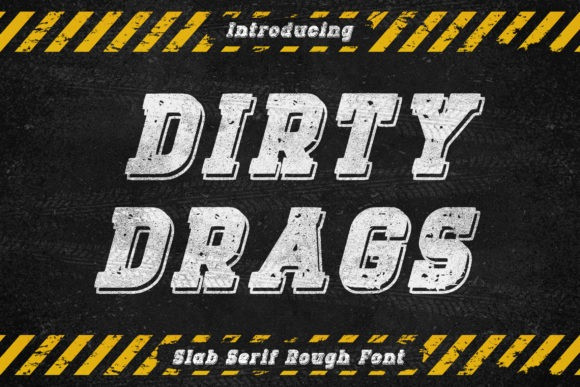
Dirty Drags Font
Dirty Drags Display Font is a cool, bold and vintage styled display font, that’s great for delivering any message with confidence, authenticity and charm. It will elevate a wide range of crafting ideas, from cards, to branding, labels and much more.